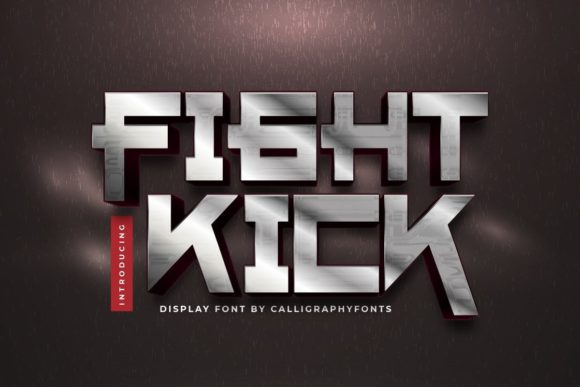
Introducing Fight Kick Font: The Ultimate Display Font for Modern Designs
In the world of typography, fonts play a crucial role in conveying the tone and personality of a brand or design. When it comes to creating striking visuals, a well-crafted display font can make all the difference. This is where Fight Kick Font comes into play – a splendid display font that offers a range of styles to suit various design needs. In this article, we’ll explore the features and benefits of Fight Kick Font, and why it’s an excellent choice for logos, branding, headlines, signage, and more.
What is Fight Kick Font?
Fight Kick Font is a modern display font that boasts a unique blend of styles, including modern, techno, strong, masculine, sporty, and more. This versatility makes it an ideal choice for designers looking to create bold and eye-catching visuals. The font’s sleek and edgy design ensures that it stands out from the crowd, making it perfect for projects that require a strong visual impact.
Key Features of Fight Kick Font
- Variety of Styles: Fight Kick Font offers a range of styles to choose from, making it suitable for different design projects and applications.
- Modern and Edgy Design: The font’s sleek and edgy design makes it perfect for creating bold and striking visuals.
- High-Quality: Fight Kick Font is a high-quality font that is designed to deliver exceptional results in various design projects.
Use Cases for Fight Kick Font
Fight Kick Font is a versatile display font that can be used in a variety of design projects, including:
- Logos and Branding: The font’s bold and striking design makes it perfect for creating memorable logos and branding materials.
- Headlines and Titles: Fight Kick Font is ideal for creating attention-grabbing headlines and titles for magazines, newspapers, and online publications.
- Signage and Advertising: The font’s clear and legible design makes it suitable for signage and advertising applications, such as billboards, posters, and flyers.
- Packaging and Product Design: Fight Kick Font can add a touch of personality to packaging and product design, making products stand out on store shelves.
Benefits of Using Fight Kick Font
Using Fight Kick Font in your design projects offers several benefits, including:
- Unique and Memorable Designs: The font’s bold and striking design ensures that your visuals stand out and leave a lasting impression.
- Flexibility and Versatility: Fight Kick Font offers a range of styles to choose from, making it suitable for different design projects and applications.
- High-Quality: Fight Kick Font is a high-quality font that is designed to deliver exceptional results in various design projects.
Tips for Using Fight Kick Font Effectively
To get the most out of Fight Kick Font, here are some tips to keep in mind:
- Choose the Right Style: With a range of styles to choose from, select the one that best suits your design project and application.
- Experiment with Colors and Textures: Don’t be afraid to experiment with different colors and textures to add depth and interest to your designs.
- Use it Sparingly: Fight Kick Font is a bold and striking font, so use it sparingly to avoid overwhelming your design.
- Pair it with Other Fonts: Consider pairing Fight Kick Font with other fonts to create a unique and visually appealing typography.
In conclusion, Fight Kick Font is a splendid display font that offers a range of styles and benefits for designers. Its modern and edgy design, PUA encoding, and high-quality make it an excellent choice for logos, branding, headlines, signage, and more. By following the tips outlined above, you can use Fight Kick Font effectively to create unique and memorable designs that stand out from the crowd.